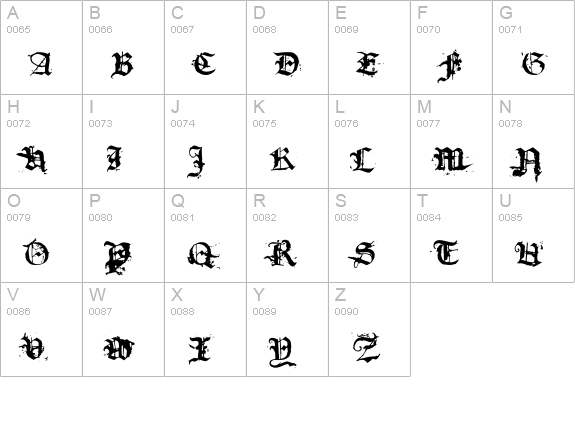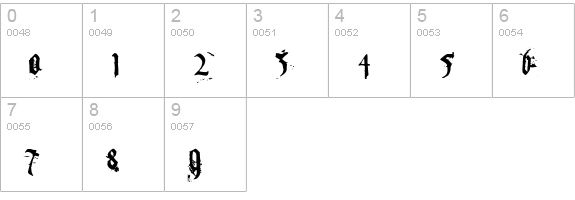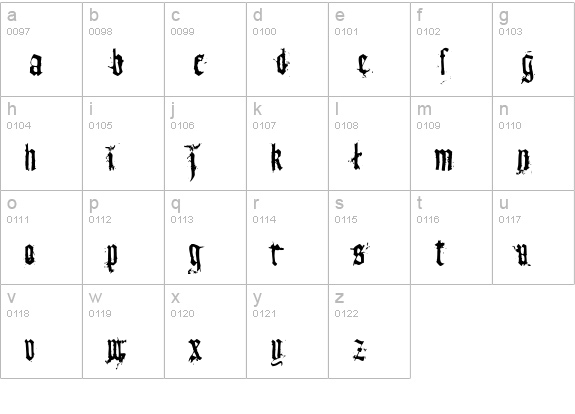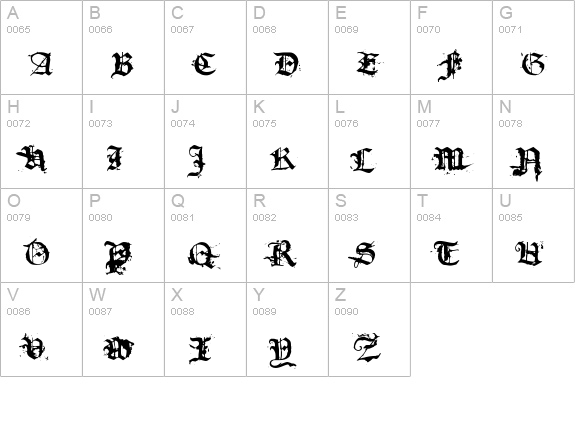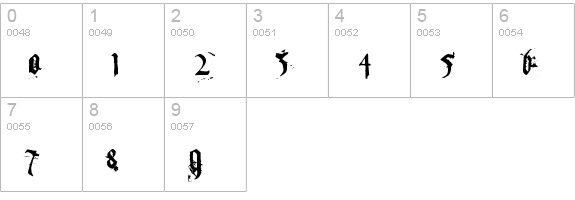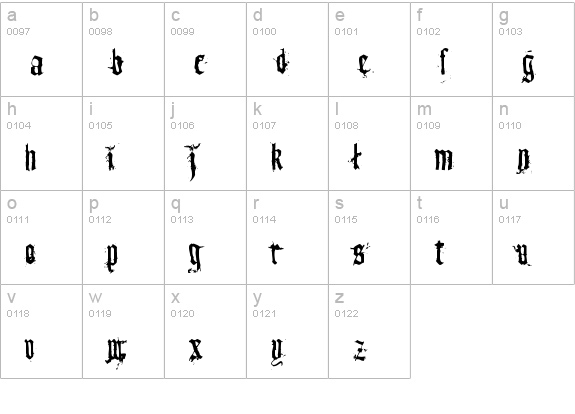
Introducing Tfu Tfu font, a stunningly unique typeface that combines elegance with a touch of playfulness. This font is perfect for adding a whimsical flair to any project, whether it's a logo, branding materials, invitations, or even a creative website design. With its enchanting curves and graceful strokes, Tfu Tfu font captures attention and leaves a lasting impression. Its versatility allows it to adapt effortlessly to various design styles, from modern and minimalist to vintage and retro. But what truly sets Tfu Tfu font apart is its accessibility. This font is freely available to download at FontsMarket.com, making it an invaluable resource for designers and creatives looking to add a dash of creativity to their work without breaking the bank. Whether you're a professional designer or someone just starting on their creative journey, Tfu Tfu font offers endless possibilities. Its wide range of characters and glyphs ensures that you can create captivating designs in various languages and styles. So why wait? Discover the beauty and versatility of Tfu Tfu font today. Download it for free at FontsMarket.com and let your imagination soar. Unleash your creativity and elevate your designs with this captivating typeface that will surely make a lasting impression.